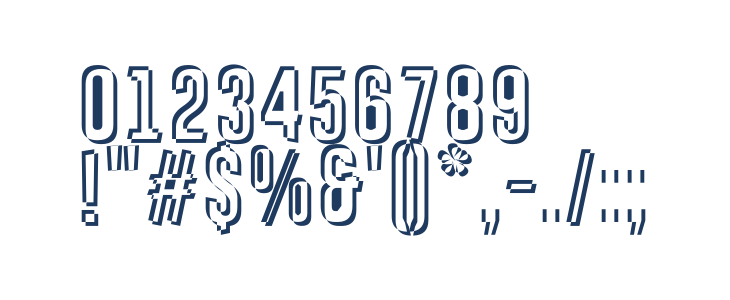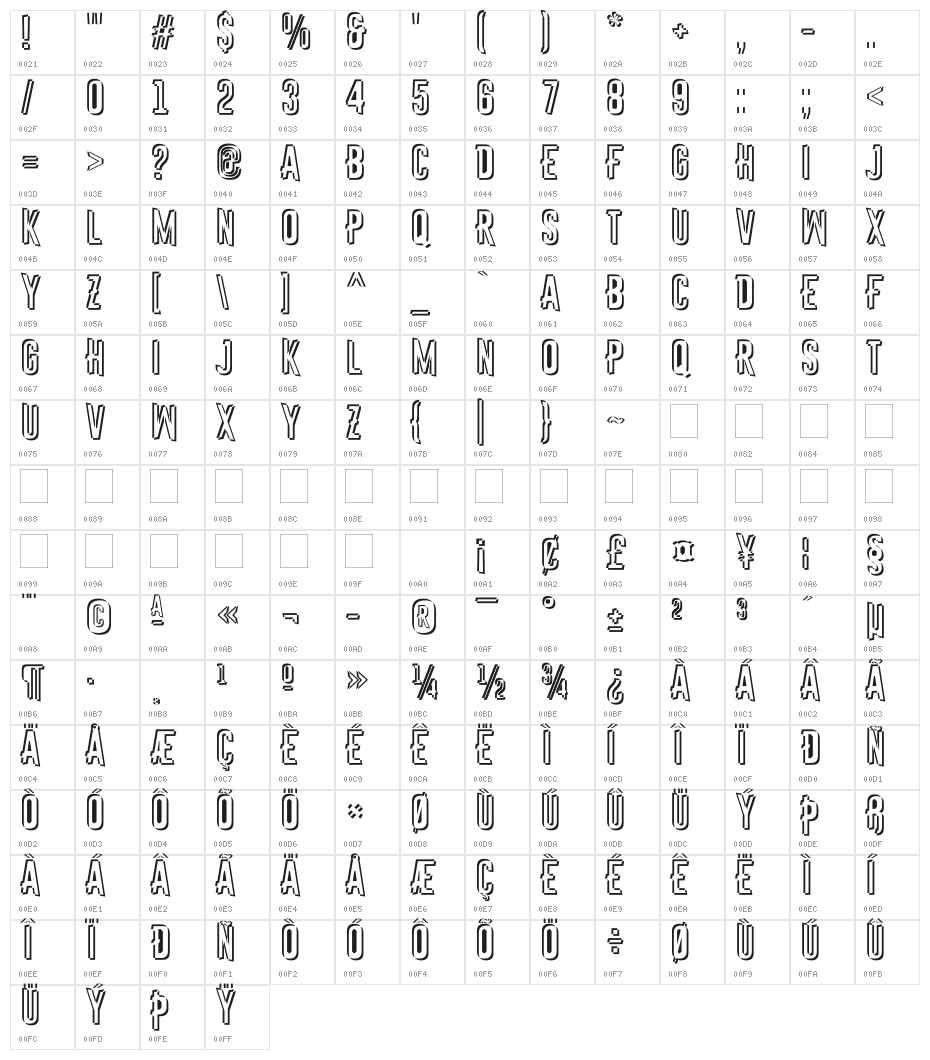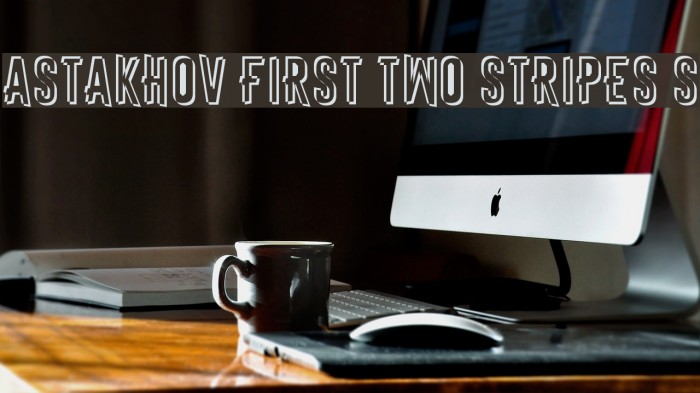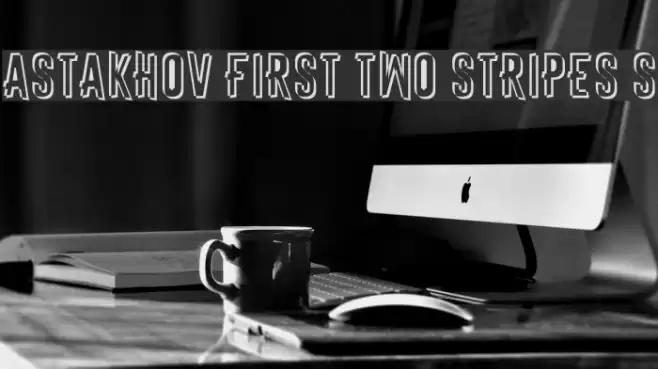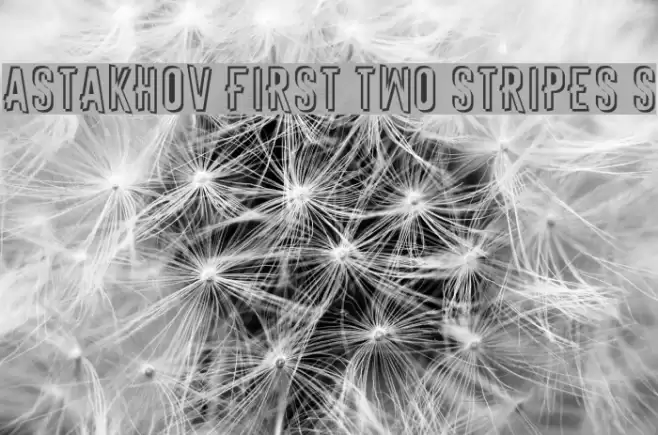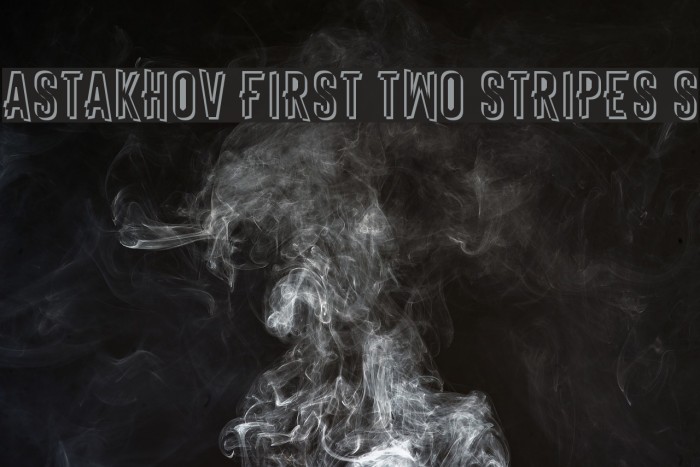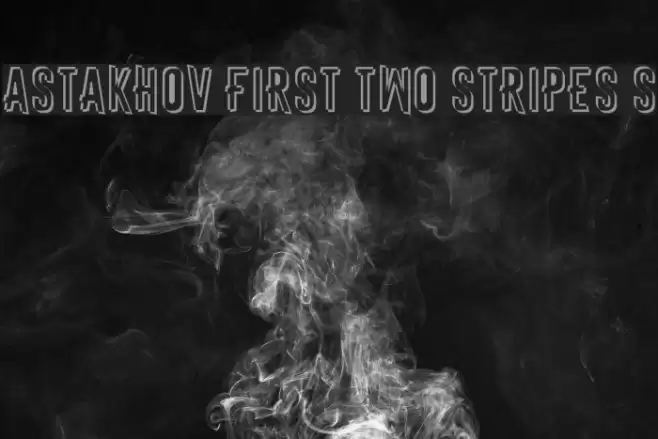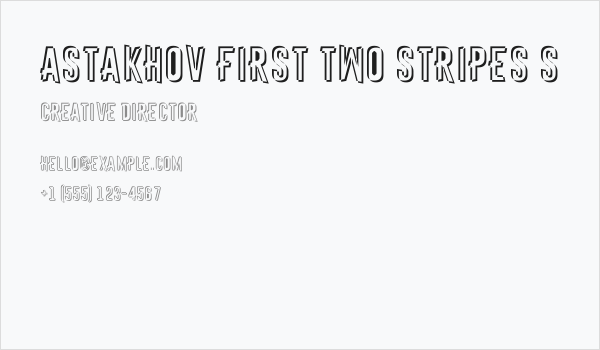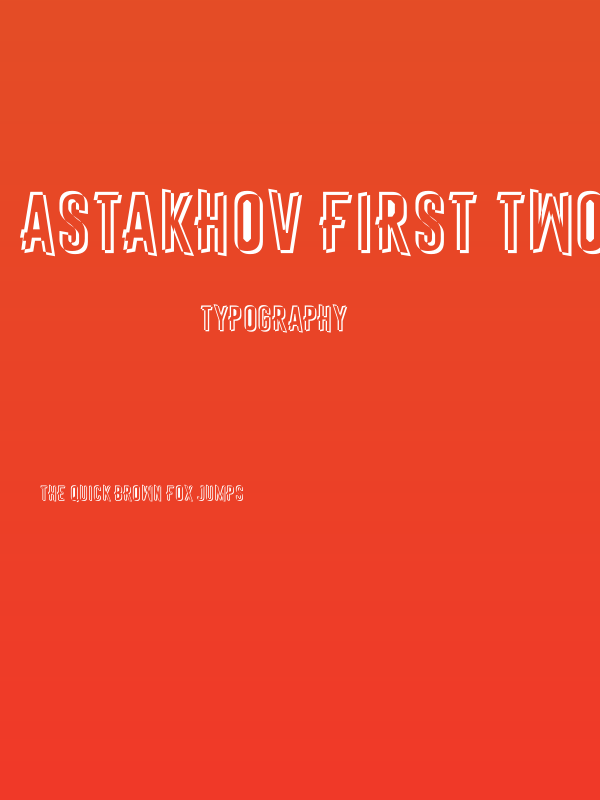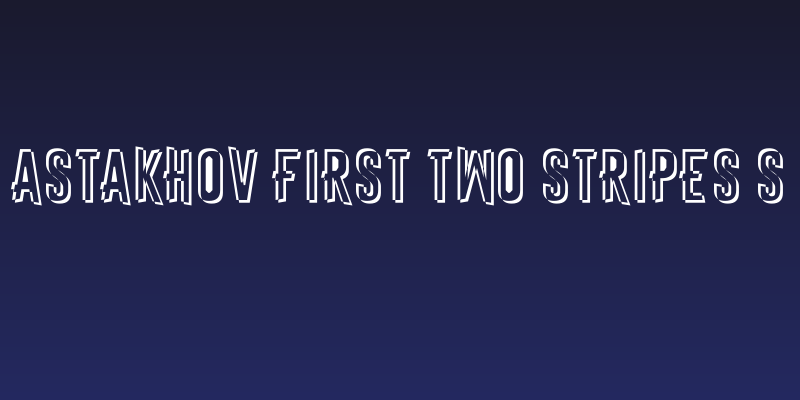
Astakhov First Two Stripes S Font
Astakhov First Two Stripes S Description
This font features a bold, decorative style with a distinct double-stripe shadow effect that gives it a three-dimensional appearance. The uppercase letters are strong and impactful, making them ideal for attention-grabbing designs. The numerals and special characters maintain the same boldness and shadow effect, ensuring consistency across all characters. The font's geometric structure and clean lines contribute to its modern and dynamic look, suitable for various creative applications.
| Proposed Projects | Ideal for posters, headlines, logos, and branding materials that require a striking and modern appearance. |